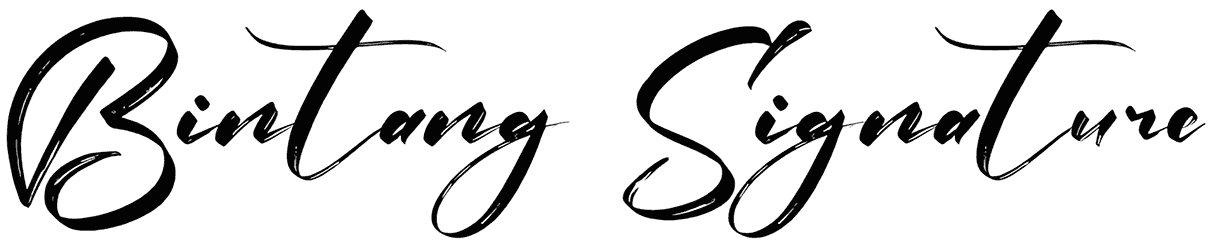
Bintang Signature Font
If you want to add a personalized touch to all of your graphic content, then you should definitely take advantage of a glorious script font similar to Bintang Signature. Since this brush font comes with a cursive style and rounded letters, it can lead to a vibe of professionalism, precision, delicacy, and dynamism.
We would like to advise you to include this magical masterpiece in your creative ideas, such as flyers, gift cards, invitations, and book covers.